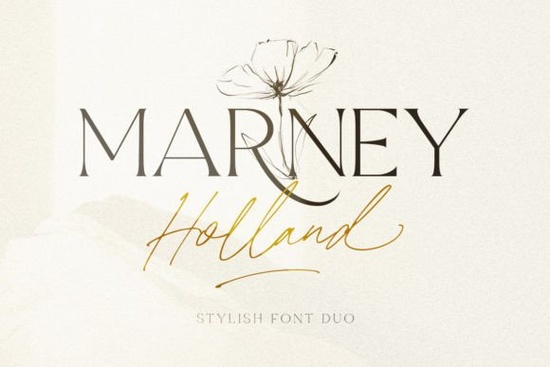
If you're looking for a clean, elegant font duo that works just as well on a wedding invitation as it does on a small business logo, the Marney Holland Font is worth your attention. It’s not flashy or overly decorative instead, it offers quiet confidence: a smooth signature script paired with a refined serif that balances warmth and professionalism. Whether you’re designing for print, digital, or craft projects, this pairing feels intentional without demanding attention.
What makes Marney Holland different from other script + serif combos?
Many font duos try too hard to stand out, but Marney Holland leans into timelessness. The script has natural flow and subtle variation in stroke weight no awkward joins or forced flourishes. The serif isn’t stiff or academic; it’s softly rounded and highly legible, even at smaller sizes. That balance means you can use them together without one overpowering the other.
It’s also PUA encoded, which matters if you’ve ever struggled to find swashes or alternate characters in design software. With Marney Holland, those extras like ligatures, stylistic alternates, and connecting glyphs appear right where you expect them in your character map or glyph panel. No digging through layers of menus or installing extra files.
Where do people actually use this font?
Designers and crafters reach for Marney Holland when they need something versatile but distinctive. Here are a few real-world examples:
- Wedding stationery: The script shines in names and headings, while the serif handles details like times, locations, and RSVP instructions with clarity.
- Small business branding: Think boutique coffee shops, handmade skincare labels, or local florists places where personality and polish matter equally.
- Print-on-demand products: Tote bags, mugs, and greeting cards benefit from fonts that look great both large and scaled down. Marney Holland holds up well across formats.
- Digital graphics: Social media posts, Canva templates, or email headers gain visual rhythm when the script and serif work in tandem.
Unlike some script fonts that rely heavily on context-sensitive alternates (which don’t always render consistently across apps), Marney Holland gives you reliable access to its full set of characters. That predictability saves time when switching between Adobe Illustrator, Procreate, Cricut Design Space, or even free tools like Canva.
Is it beginner-friendly?
Yes especially if you’ve used script fonts before. There’s no steep learning curve. You won’t need to master OpenType features to get good results. The default characters look polished on their own, and the extras are there if you want to add subtle refinement. For hobbyists using Silhouette Studio or Cricut, the PUA encoding means swashes and alternates show up cleanly in the font menu, not buried behind special key combinations.
Who’s it best suited for?
This isn’t a “one-size-fits-all” font, but it fits well for people who value consistency and subtlety over trendiness. You’ll likely enjoy it if you:
- Prefer fonts that age well not tied to a specific year or design fad
- Work across multiple mediums (print, digital, vinyl, embroidery)
- Want pairing options that feel effortless, not forced